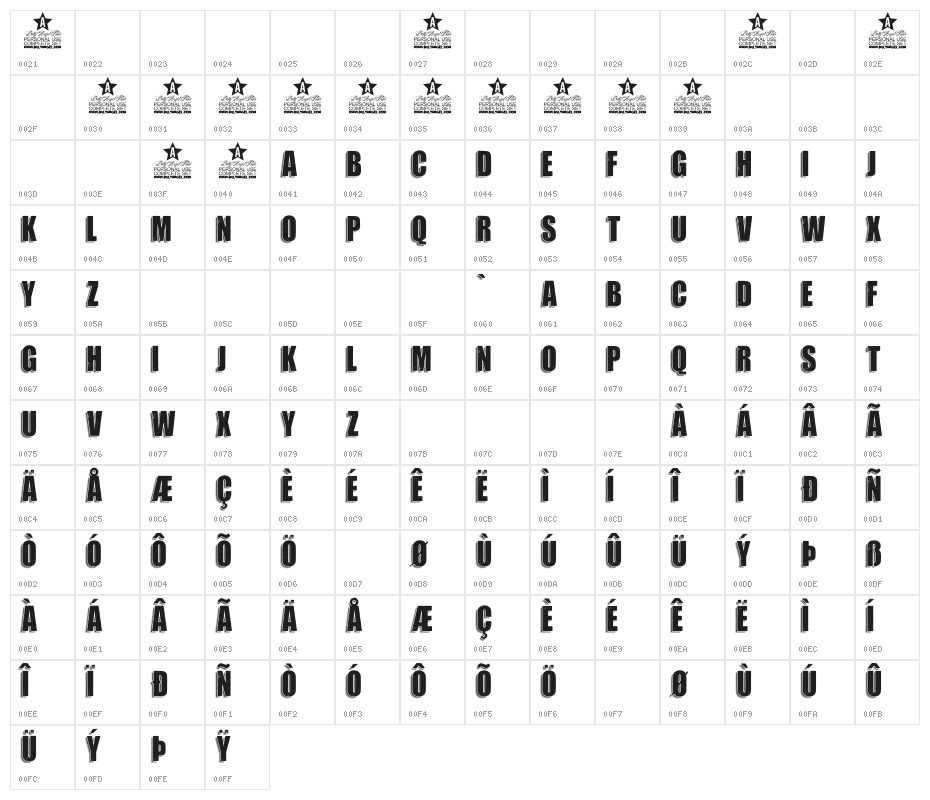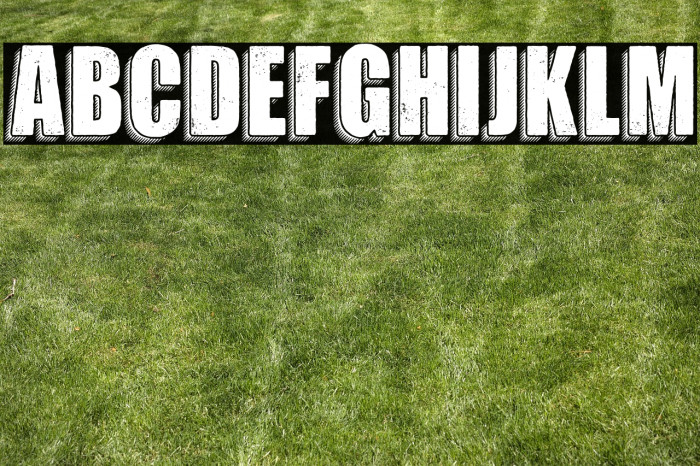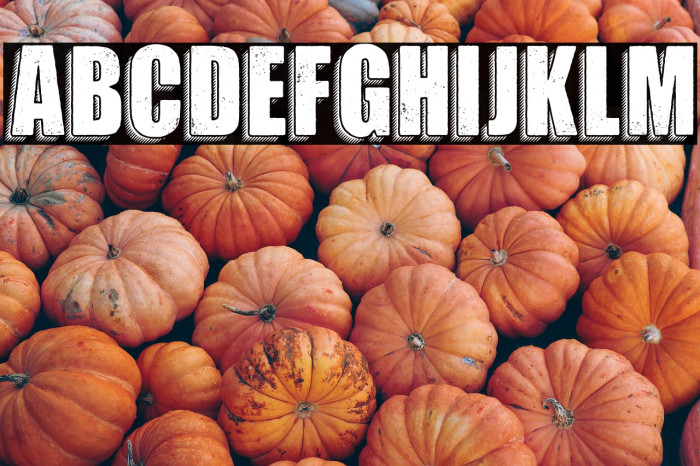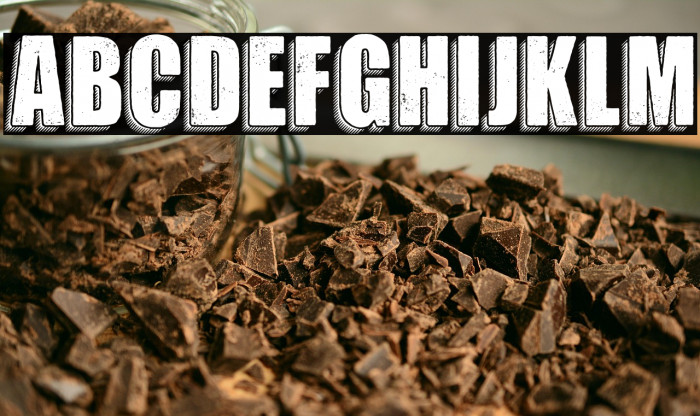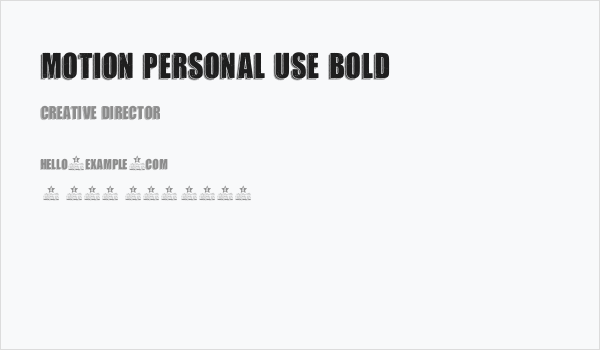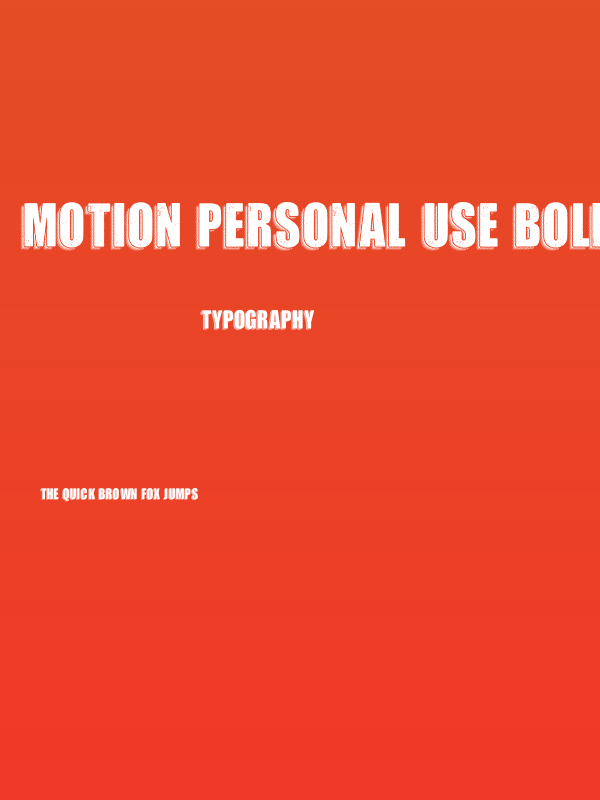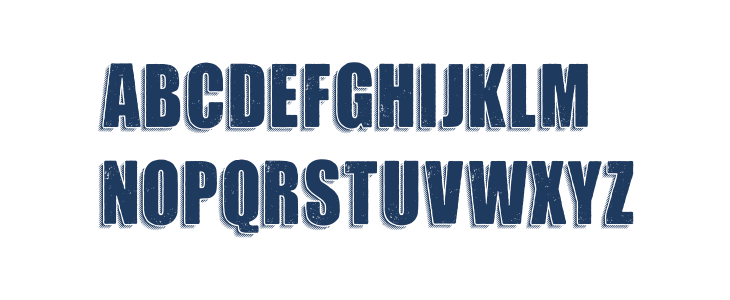
MOTION PERSONAL USE Bold Font
MOTION PERSONAL USE Bold Description
This bold, decorative font features a distressed, textured appearance that gives it a rugged and vintage feel. The uppercase letters are prominently displayed with a shadow effect that adds depth and dimension. The font's bold weight and unique style make it stand out, making it suitable for attention-grabbing headlines and designs. The characters are tightly spaced, enhancing the compact and impactful look. This font's distinctive style is perfect for projects that require a strong, bold statement.
| Proposed Projects | Ideal for posters, logos, branding, and any design that requires a bold, vintage aesthetic. |